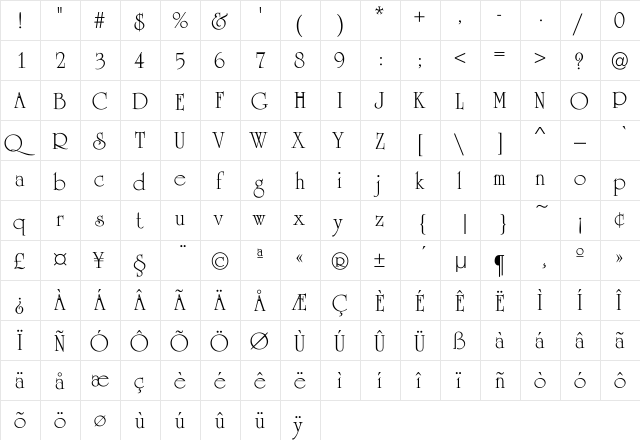
University Regular
Design Context for University Typeface
University takes a measured approach to typography — its balanced proportions and neutral character make it a reliable workhorse for both digital and print work.